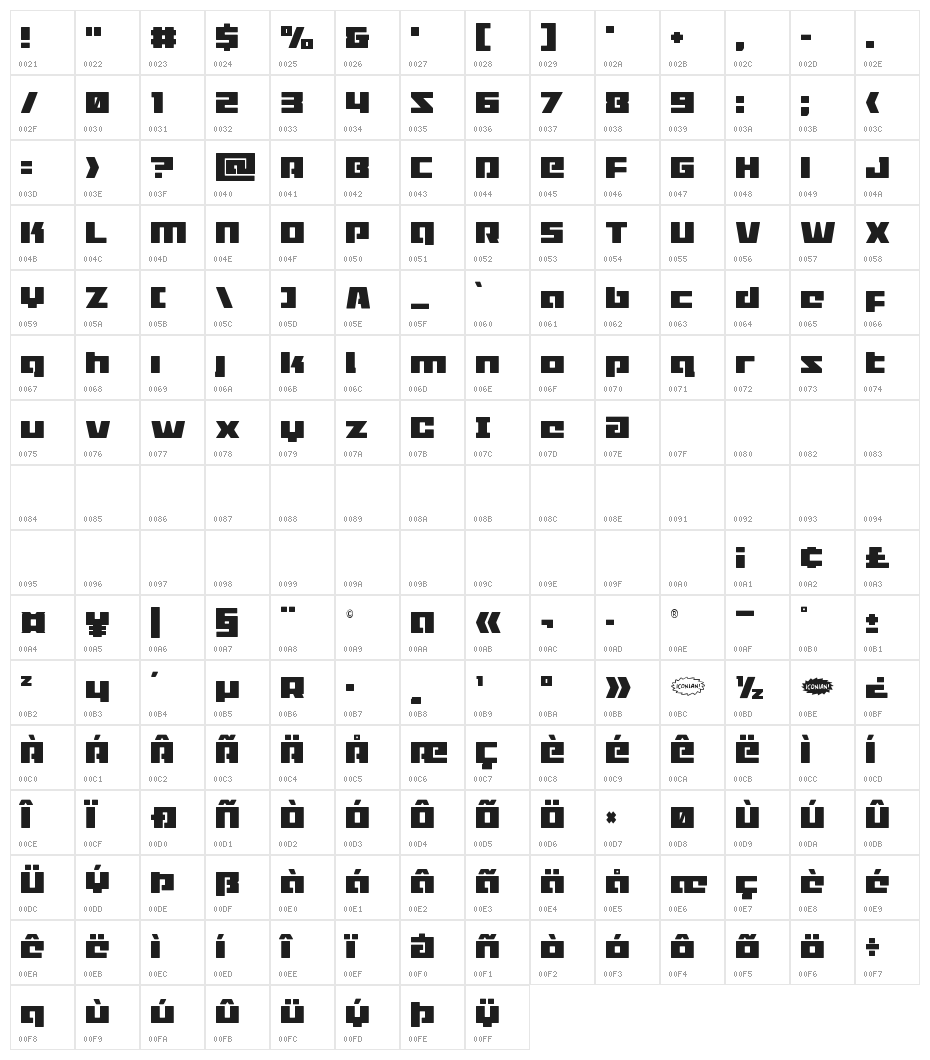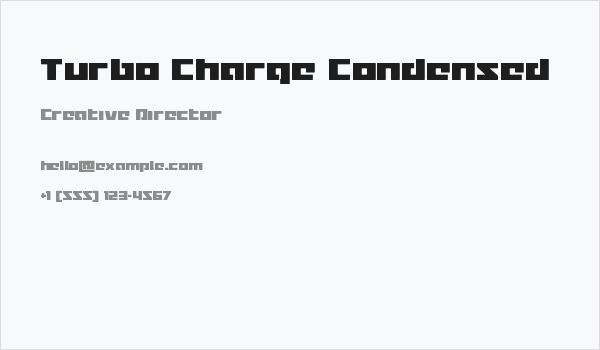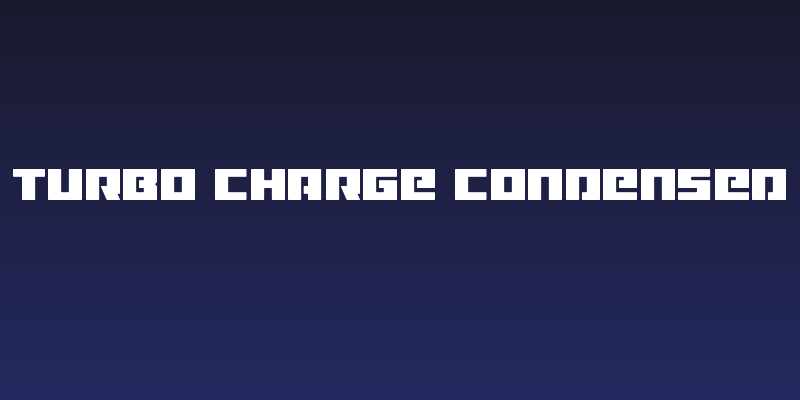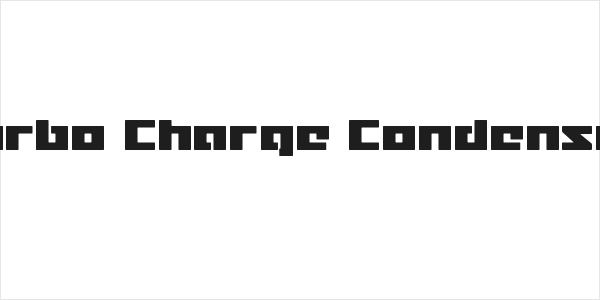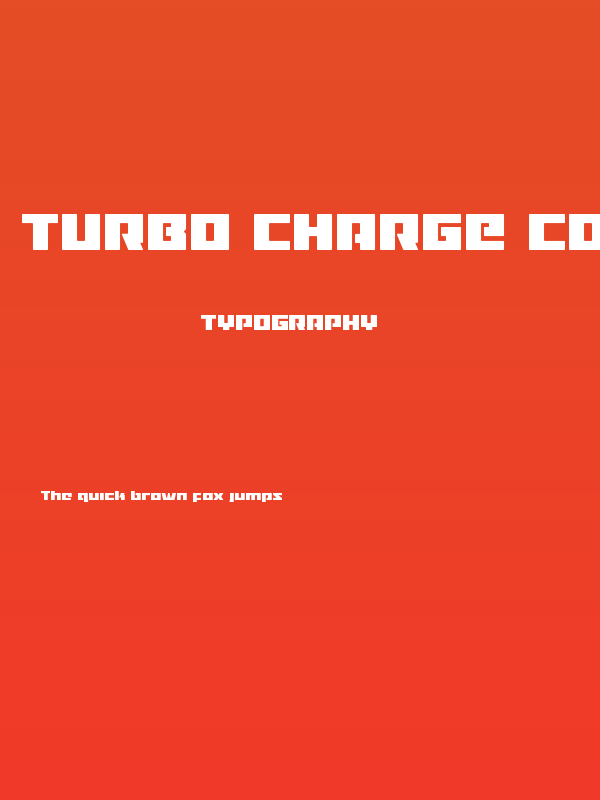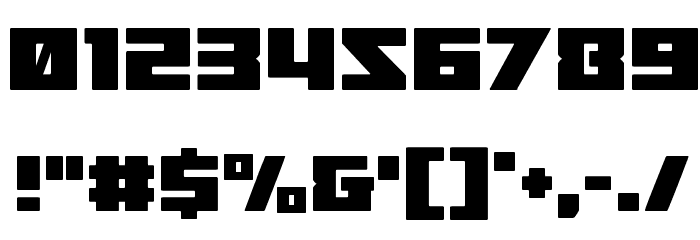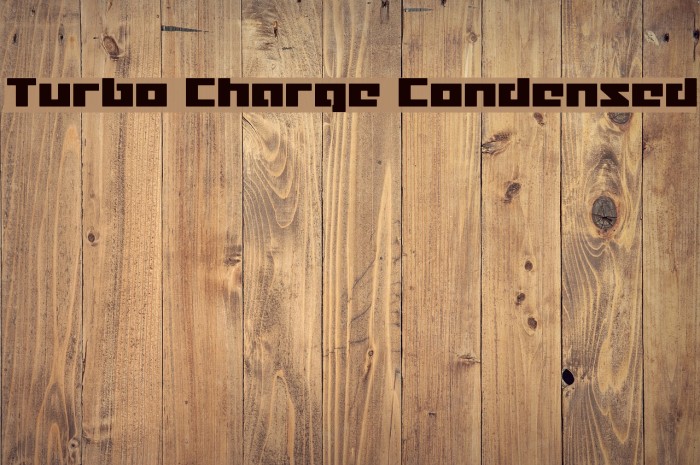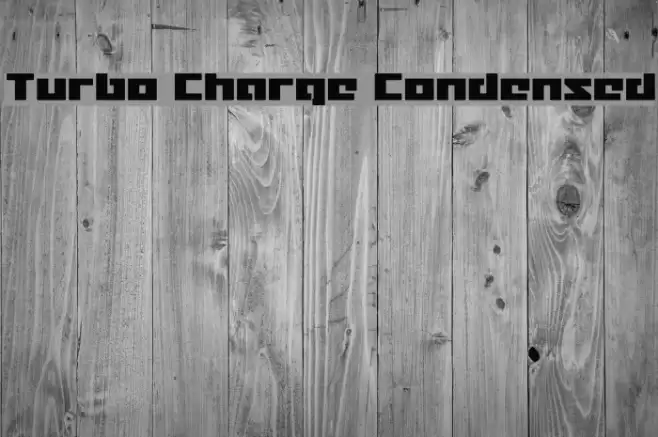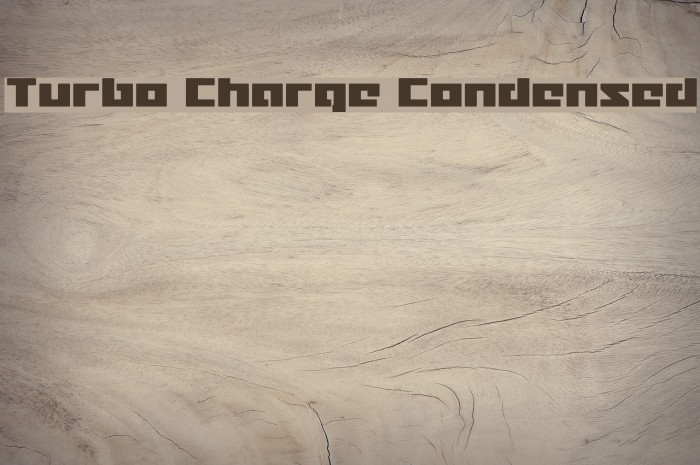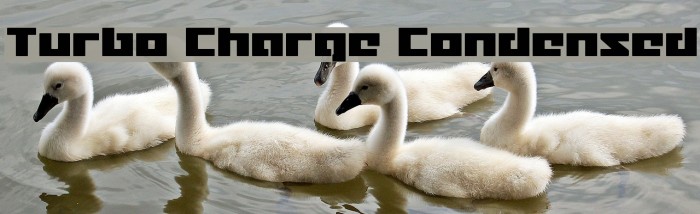
Turbo Charge Condensed Font
Turbo Charge Condensed Description
This font features a bold, geometric design with a distinctly modern and futuristic aesthetic. The characters are blocky and angular, with sharp edges and a uniform thickness throughout. The uppercase and lowercase letters maintain a consistent style, creating a cohesive look. The numbers and special characters follow the same design principles, ensuring a uniform appearance across all glyphs. The condensed width of the characters allows for efficient use of space, making it ideal for impactful headlines or titles. The font's strong presence and unique style make it suitable for projects that require a bold statement.
| Proposed Projects | Ideal for use in technology branding, video game titles, futuristic posters, and sci-fi themed designs. |